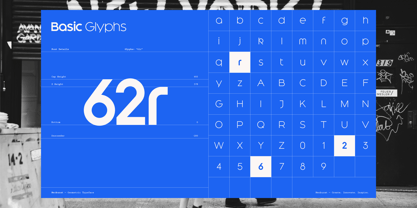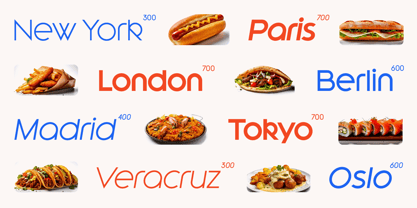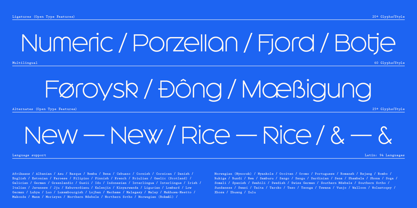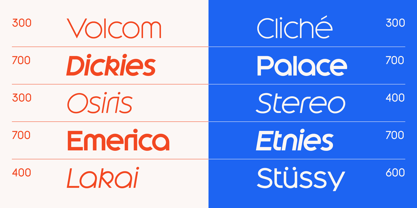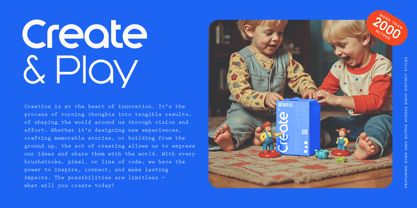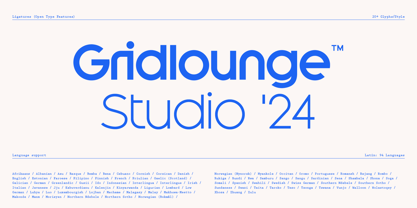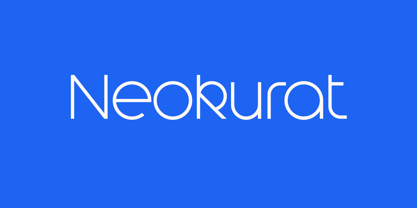
Neokurat
by Gridlounge
The Neokurat Font Family was designed by Steve Käsinger and published by Gridlounge. Neokurat contains 4 styles and family package options.
Neokurat is a geometric display typeface inspired by the clean lines and fundamental shapes of the Bauhaus movement. With its precise geometry and minimalist design, Neokurat echoes the Bauhaus philosophy, offering a modern look for logos and headlines. The typeface is built upon simple geometric forms—circles, squares, and triangles—creating a balance between boldness and clarity. Its structured design reflects a strong connection to modernist architecture and design principles, making it ideal for both digital and print applications. Neokurat also offers OpenType features like ligatures and alternates, providing designers with creative typographic solutions while maintaining a clean aesthetic.